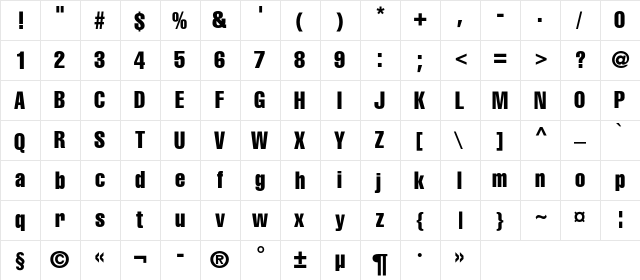
HeliosCompressed Regular
Design Context for HeliosCompressed Typeface
HeliosCompressed offers clean, dependable letterforms without strong stylistic allegiance, making it a practical choice for designers who need flexibility.
Pro Tip: Use HeliosCompressed in both headline and body roles to test its range before committing to a single application.